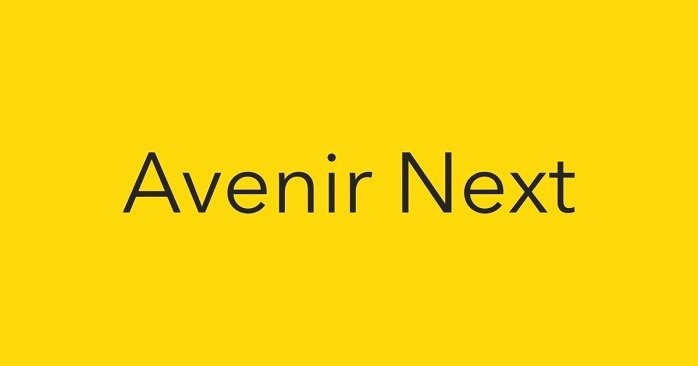
Avenir Next Font
Avenir is a sans-serif typeface designed by Adrian Frutiger and released in 1988 by Linotype GmbH.
The term avenir is French for “future”. As being the identify implies, the household requires inspiration in the geometric style of sans-serif typeface created in the twenties that took the circle as being a basis, these types of as Erbar and Futura.
Frutiger supposed Avenir being a more natural and organic interpretation in the geometric design, more even in colour and well suited for prolonged text, with particulars recalling a lot more standard typefaces these types of given that the two-storey ‘a’ and ‘t’ having a curl for the base, and letters such since the ‘o’ which have been not specific, fantastic circles but optically corrected.
Frutiger described Avenir as his finest operate: ‘The high-quality from the draughtsmanship – as an alternative to the mental idea driving it – is my masterpiece. (…) It had been the toughest typeface I have labored on in my daily life.
Focusing on it, I constantly experienced human character in your mind.
And what’s very important is I made the typeface by itself, in peace and quiet – no drafting assistants, no-one was there. My persona is stamped on it. I’m proud that i was in a position to develop Avenir.